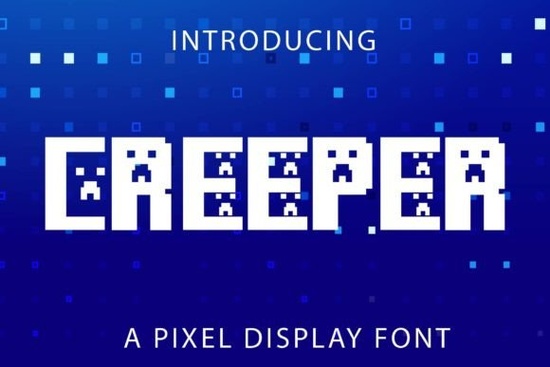
The Creeper Font is a standout choice for anyone looking to add a touch of whimsy and energy to their design projects. With its bold, dynamic letterforms, this font brings a sense of playfulness that can elevate everything from social media graphics to print materials. Whether you're a designer, crafter, or small business owner, the Creeper Font offers a unique visual style that stands out in a crowd.
Designed with creativity in mind, the Creeper Font is perfect for projects that need a lively and imaginative feel. Its playful appearance makes it ideal for branding, marketing materials, and creative expressions that aim to capture attention. The font’s versatility allows it to work well in both digital and physical formats, making it a valuable addition to any designer’s toolkit.
What Makes the Creeper Font Unique?
The Creeper Font is more than just a fun look it’s a tool that can help you express your creative vision in a fresh and engaging way. Its bold strokes and dynamic shapes give it a sense of movement, making it ideal for designs that need to feel energetic and vibrant. This font works especially well when paired with other playful elements, such as illustrations or bright colors.
One of the key strengths of the Creeper Font is its ability to convey a sense of joy and imagination. It’s not just about looking good it’s about feeling good. When used effectively, this font can bring a smile to the faces of your audience and make your work more memorable.
Best Uses for the Creeper Font
This font shines in a variety of applications. For example, it’s great for creating eye-catching headlines, logos, and banners. It also works well for social media posts, where a bold and playful font can help your content stand out. If you’re designing merchandise for a print-on-demand business, the Creeper Font can add a fun and distinctive element to your products.
For crafters and hobbyists, the Creeper Font can be a useful tool for adding a personal touch to handmade items. Whether you’re making custom t-shirts, greeting cards, or decorative signs, this font can help you create something that feels unique and expressive.
How to Use the Creeper Font Effectively
To get the most out of the Creeper Font, consider how it fits with the overall tone of your project. Since it’s a display font, it’s best used in smaller quantities such as headings, titles, or short phrases rather than long blocks of text. This helps maintain readability while still allowing the font to make an impact.
When pairing the Creeper Font with other fonts, look for complementary styles that don’t compete with its boldness. For example, a clean sans-serif font can balance out the playfulness of the Creeper Font, creating a harmonious and professional look.
Final Thoughts
The Creeper Font is a versatile and expressive choice for designers and creators who want to add a bit of fun to their work. Its bold, dynamic style makes it ideal for projects that need a lively and imaginative touch. Whether you're working on a personal project or a commercial design, this font can help you stand out and connect with your audience in a meaningful way.
Before using the Creeper Font in your next project, take some time to experiment with different sizes, colors, and layouts. This will help you understand how the font performs in various contexts and ensure that it enhances your design rather than overwhelming it.